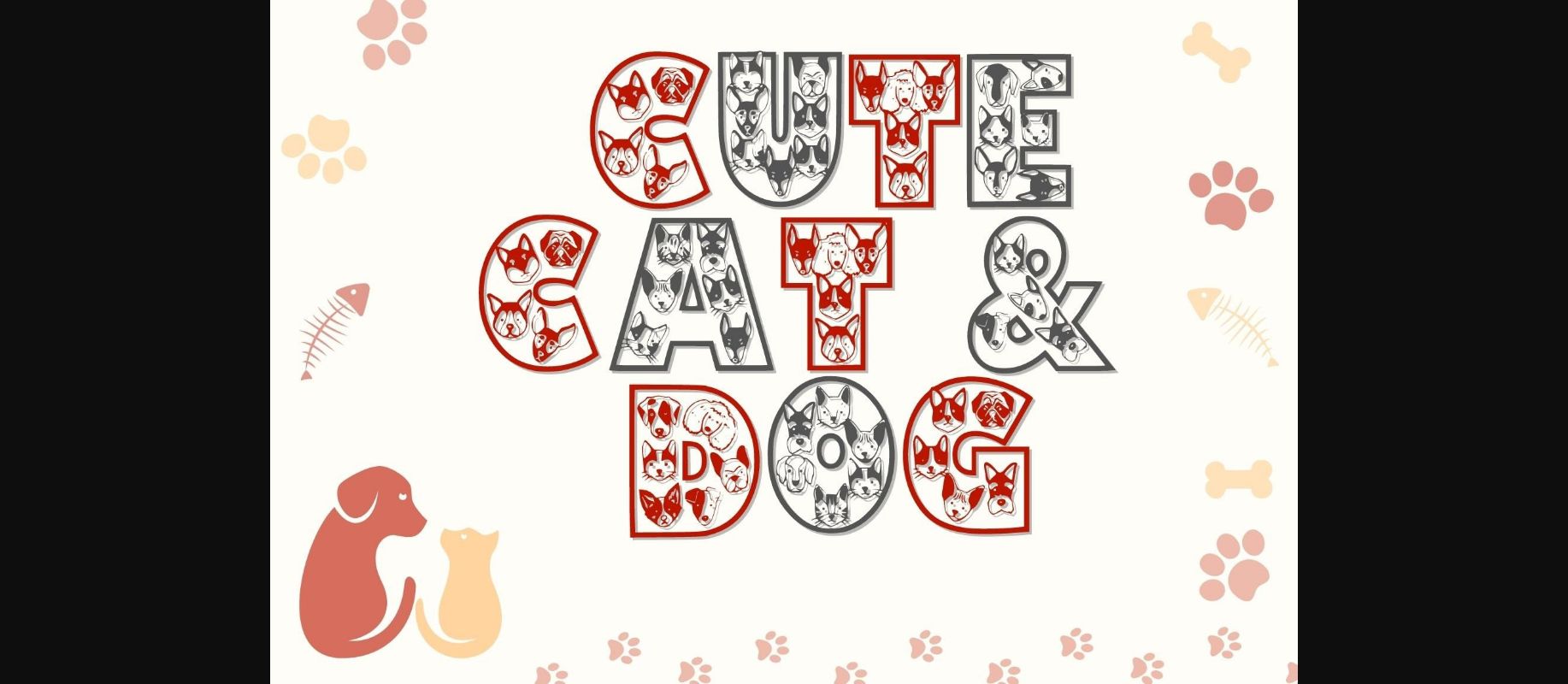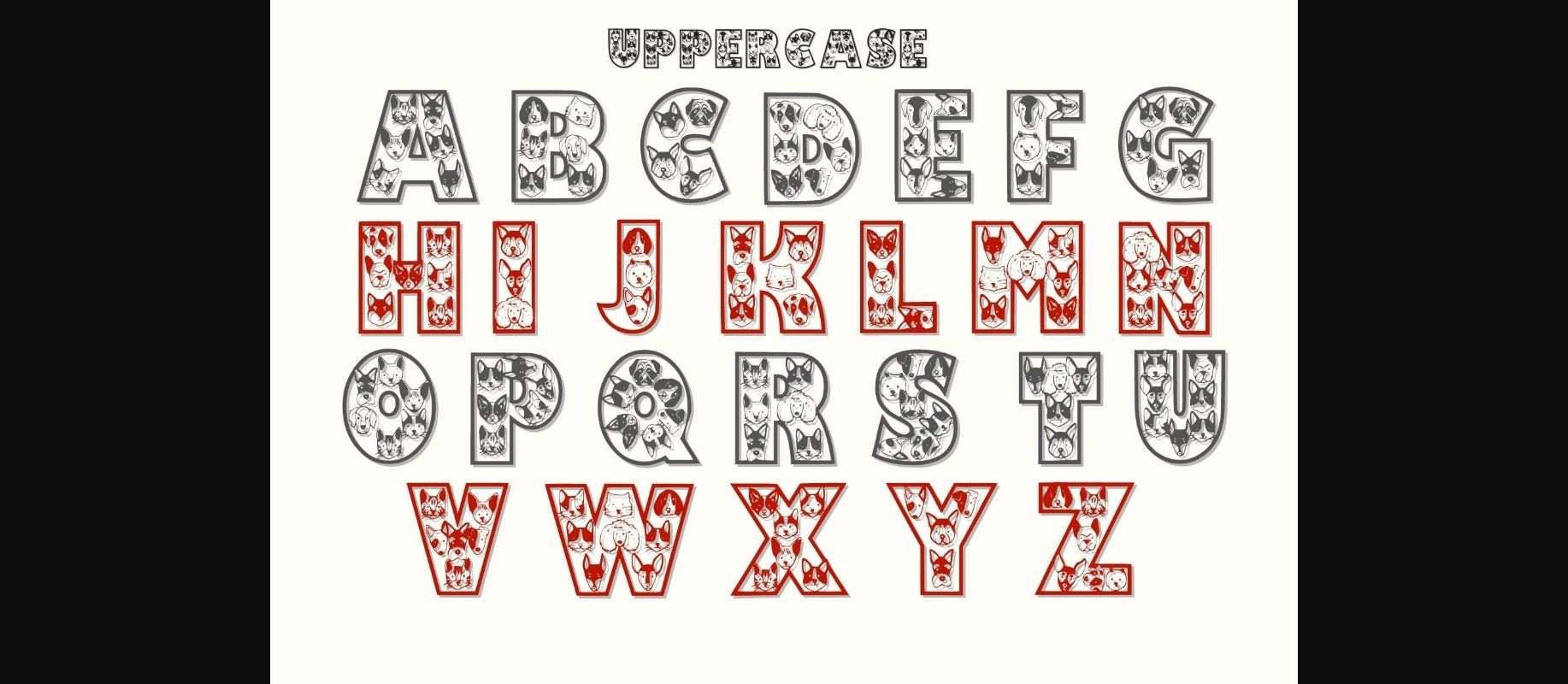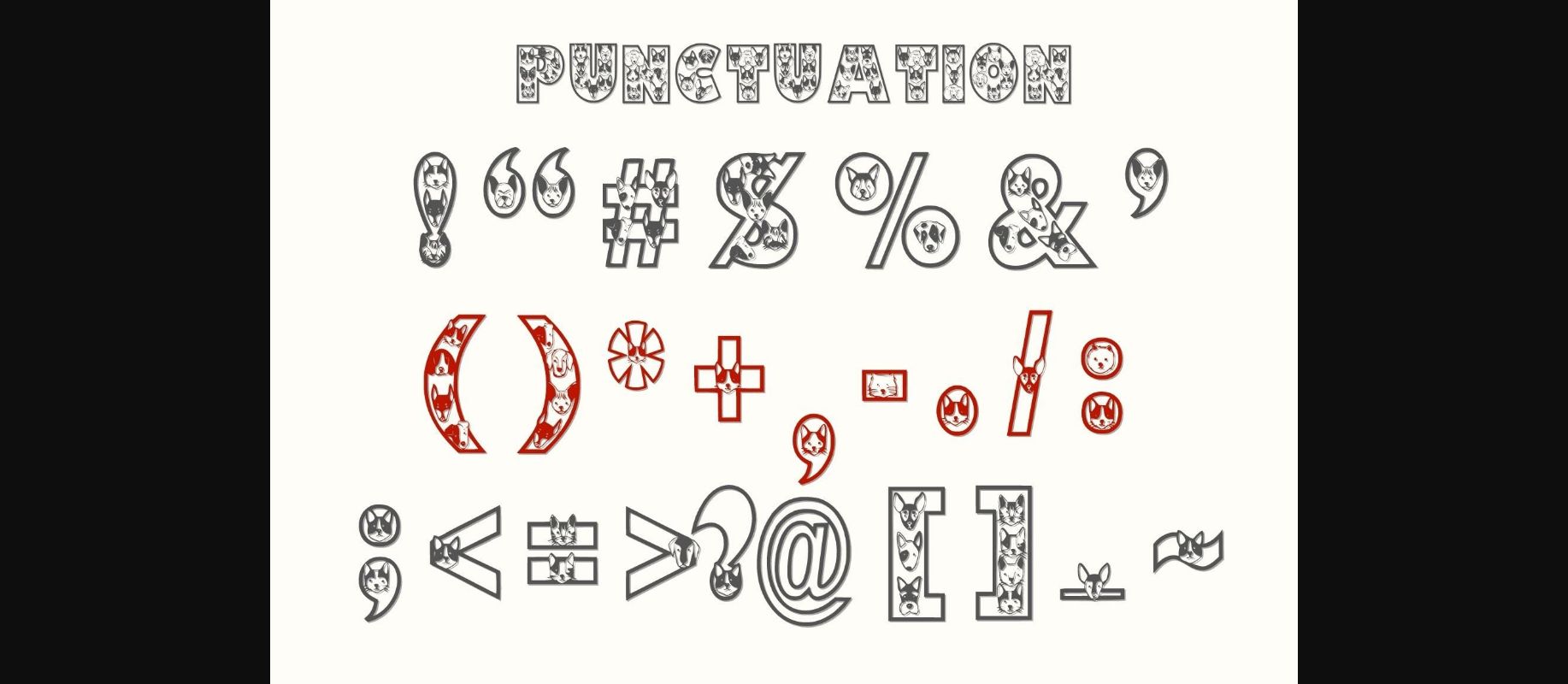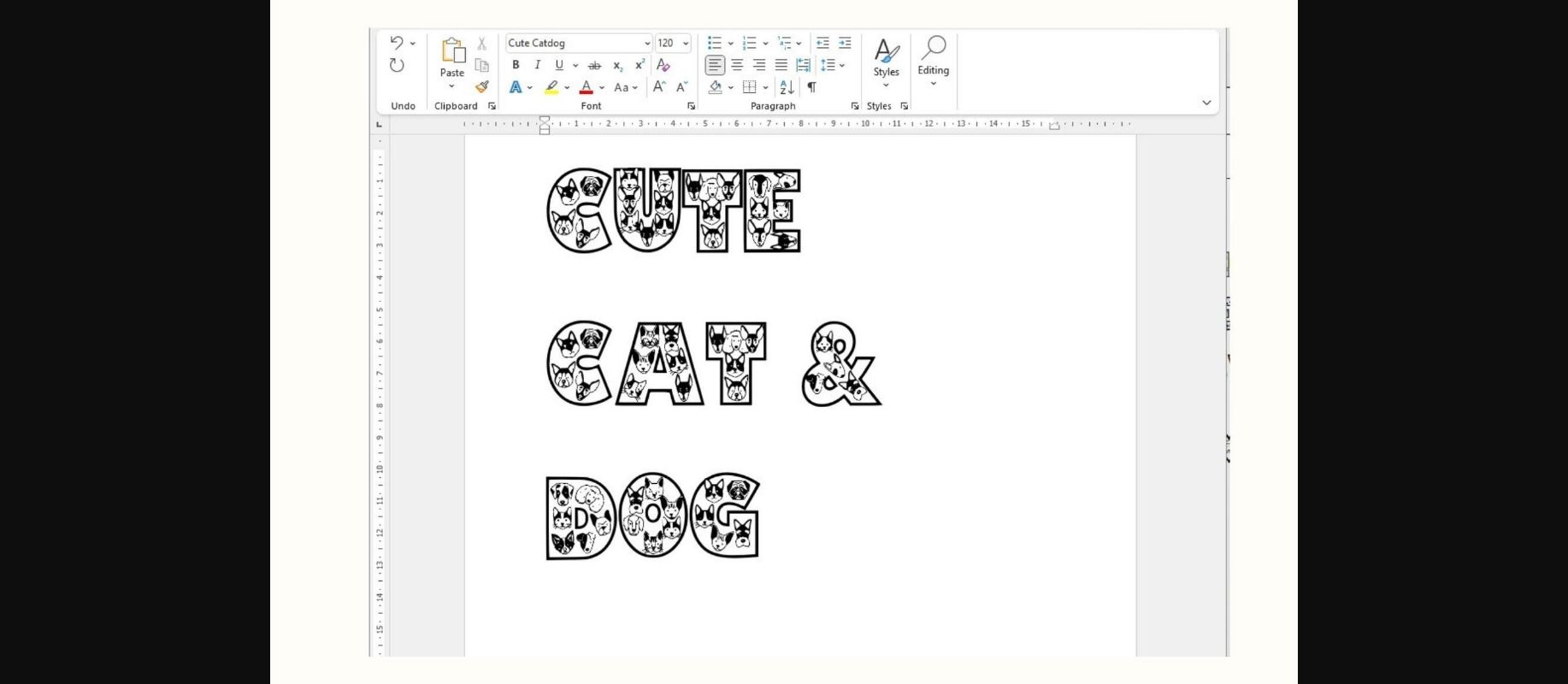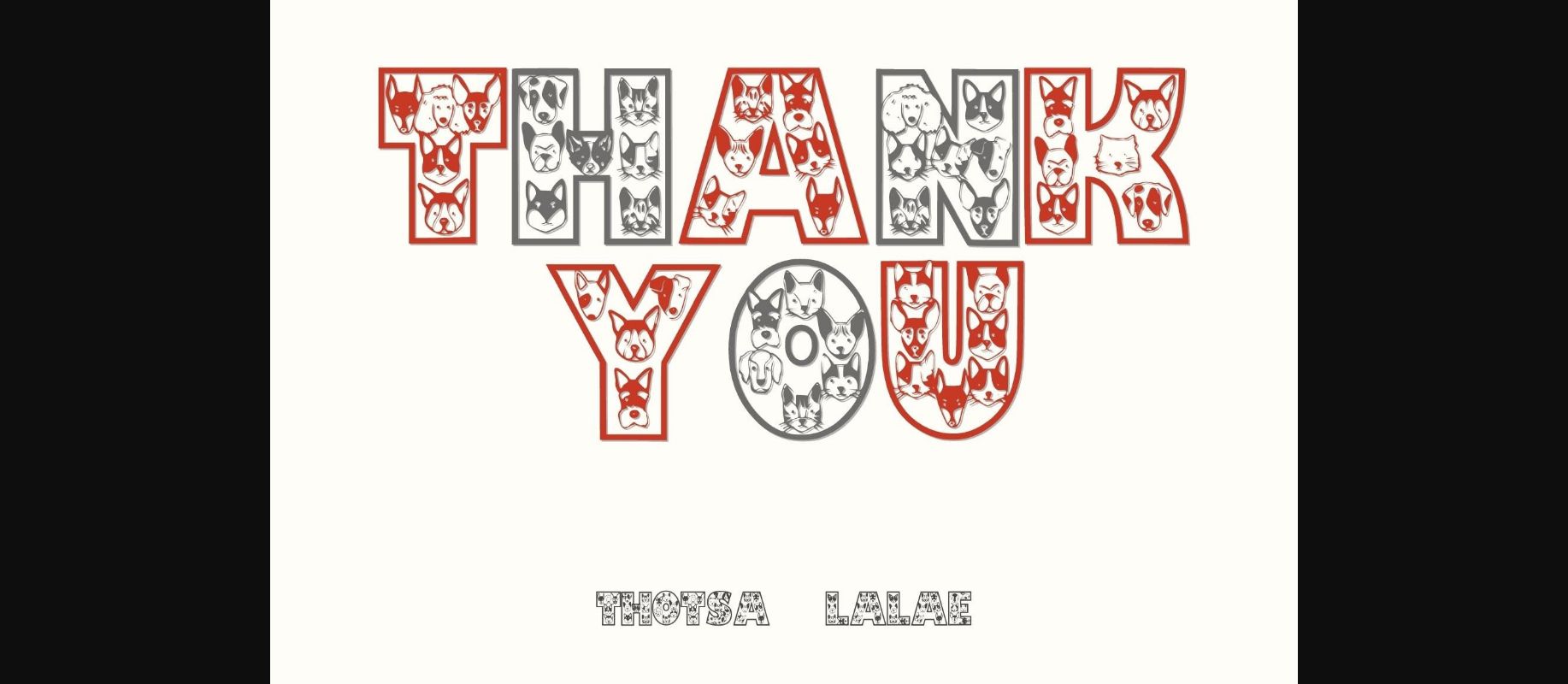
About Cute Cat Dog Font
Cute Cat Dog is a sweet decorative font with a dog’s face and a cat’s face in the letters. The font itself is thick and has a strong feeling, but the presence of dog and cat faces in the font makes it look cute and playful. This font can be used in a wide variety of applications related to dogs and cats, it will make your work come out beautiful and dear.